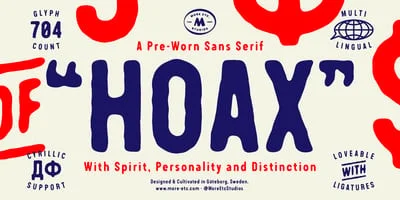
Hoax Font
Usage Examples: Hoax Font is perfect for retro-inspired posters, vintage branding, editorial layouts, and eye-catching packaging designs.
Why It’s Exciting: Its pre-worn, bold sans-serif style, inspired by old copy machines, delivers a gritty, authentic vibe that grabs attention.
Font Families: Hoax Font includes Regular and Slanted variants, with over 40 discretionary ligatures for added personality.
Stand out with Hoax Font! This bold, semi-condensed sans-serif typeface, designed by More Etc., brings a retro, distressed charm to your projects, ideal for creating a lasting impression. With over 700 glyphs and support for 150+ languages, including Cyrillic, it’s perfect for multilingual branding and creative designs. Download Hoax Font now to test its unique, worn-out aesthetic, but secure a commercial license for professional use. Featuring discretionary ligatures for words like “AND” and “THE,” plus Regular and Slanted styles, this font offers versatility and character. Elevate your brand’s visibility with this dynamic, vintage-inspired typeface today